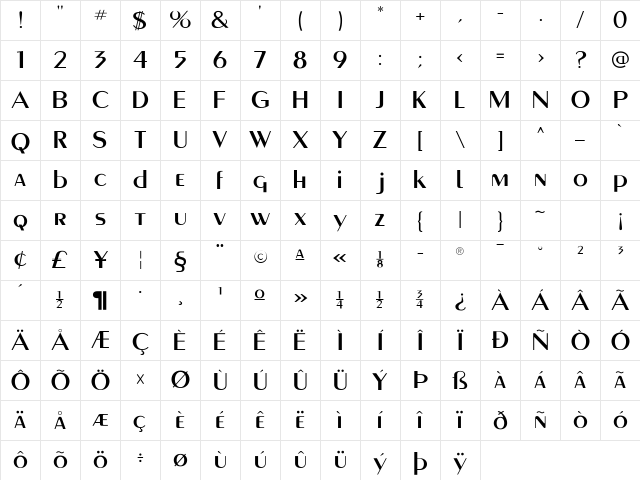
MontereyMediumFLF Regular Free Font
MontereyMediumFLF Regular
Complete MontereyMediumFLF Regular glyph index. Displaying only characters natively supported by MontereyMediumFLF Regular font.
Design Context for MontereyMediumFLF
MontereyMediumFLF is a composed and adaptable typeface that performs quietly and consistently across a wide range of design contexts.